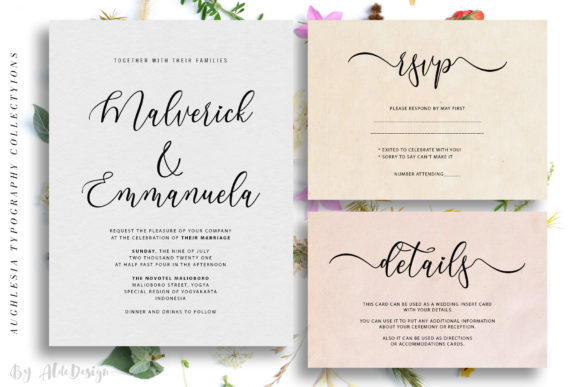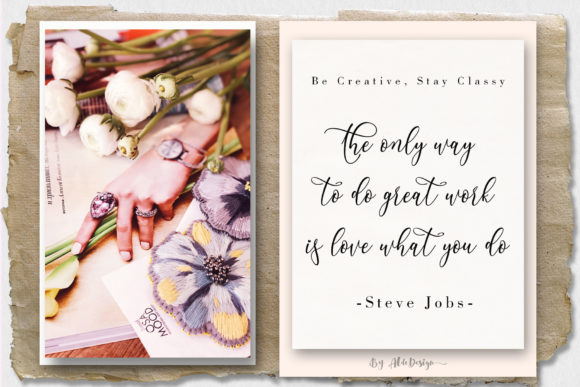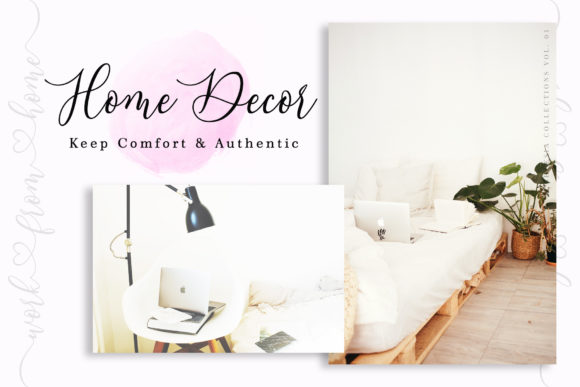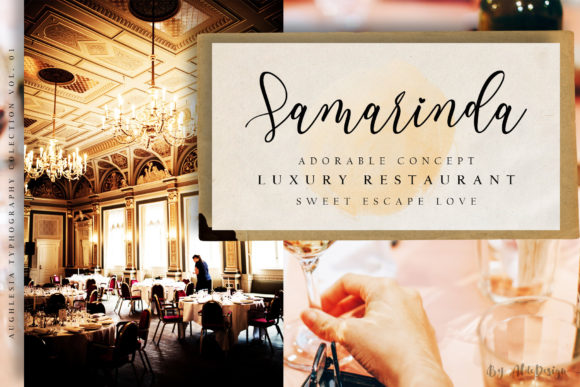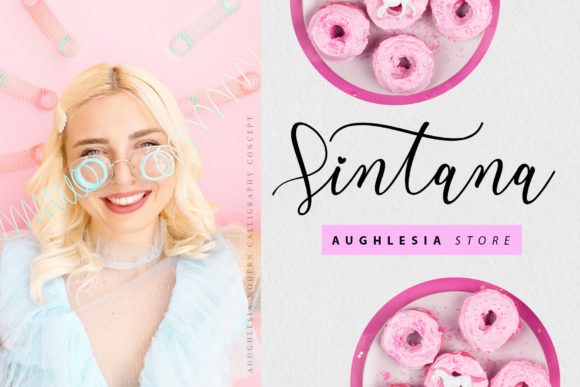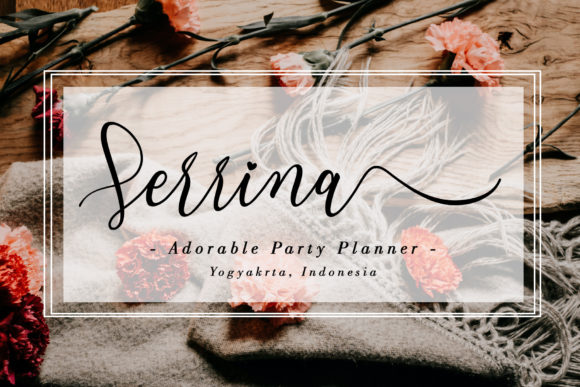
Aughlesia Font: Elevate Your Design Projects with a Modern Handwritten Style
In the world of design, typography plays a crucial role in conveying the tone and personality of a brand or project. Aughlesia Font is a modern handwritten font that brings its own unique style to any design project, elevating it to the highest level. Whether you’re a designer, crafter, or DIY enthusiast, Aughlesia Font is a versatile and stylish addition to your toolkit.
What is Aughlesia Font?
Aughlesia Font is a carefully crafted, modern handwritten font designed to add a touch of elegance and sophistication to your design projects. Its unique style blends traditional and contemporary elements, making it perfect for a wide range of applications. From branding and headings to wedding designs, invitations, signatures, logos, labels, and more, Aughlesia Font is the perfect choice for anyone looking to add a personal touch to their work.
Key Features of Aughlesia Font
- Unique Style: Aughlesia Font boasts a distinctive, modern handwritten style that sets it apart from other fonts.
- Versatility: Suitable for a wide range of design projects, including branding, headings, wedding designs, invitations, signatures, logos, labels, and more.
- Elegance and Sophistication: Aughlesia Font adds a touch of elegance and sophistication to any design project.
Design Applications for Aughlesia Font
Aughlesia Font is an incredibly versatile font that can be used in various design applications, including:
- Branding: Create a lasting impression with Aughlesia Font, perfect for logos, business cards, and letterheads.
- Wedding Designs: Add a touch of romance and elegance to your wedding designs, including invitations, programs, and place cards.
- Headings and Titles: Use Aughlesia Font to create eye-catching headings and titles for your blog posts, articles, and social media graphics.
- Signatures and Labels: Personalize your signatures, labels, and packaging with Aughlesia Font.
- Logos and Icons: Create custom logos and icons using Aughlesia Font.
Why Choose Aughlesia Font?
With so many fonts available, why choose Aughlesia Font? Here are a few reasons:
- Unique Style: Aughlesia Font offers a fresh and modern take on traditional handwritten fonts.
- High-Quality Design: Carefully crafted to ensure a high level of quality and legibility.
Tips for Using Aughlesia Font
To get the most out of Aughlesia Font, here are a few tips:
- Experiment with Sizes and Colors: Play around with different sizes and colors to find the perfect combination for your design.
- Pair with Other Fonts: Combine Aughlesia Font with other fonts to create a unique and visually appealing design.
- Use for Headings and Titles: Aughlesia Font is perfect for headings and titles, adding a touch of elegance and sophistication to your design.
Aughlesia Font is a modern handwritten font that brings its own unique style to any design project. With its versatility, elegance, and sophistication, it’s perfect for designers, crafters, and DIY enthusiasts looking to elevate their design projects to the highest level. Whether you’re creating branding materials, wedding designs, or simply want to add a personal touch to your work, Aughlesia Font is an excellent choice.